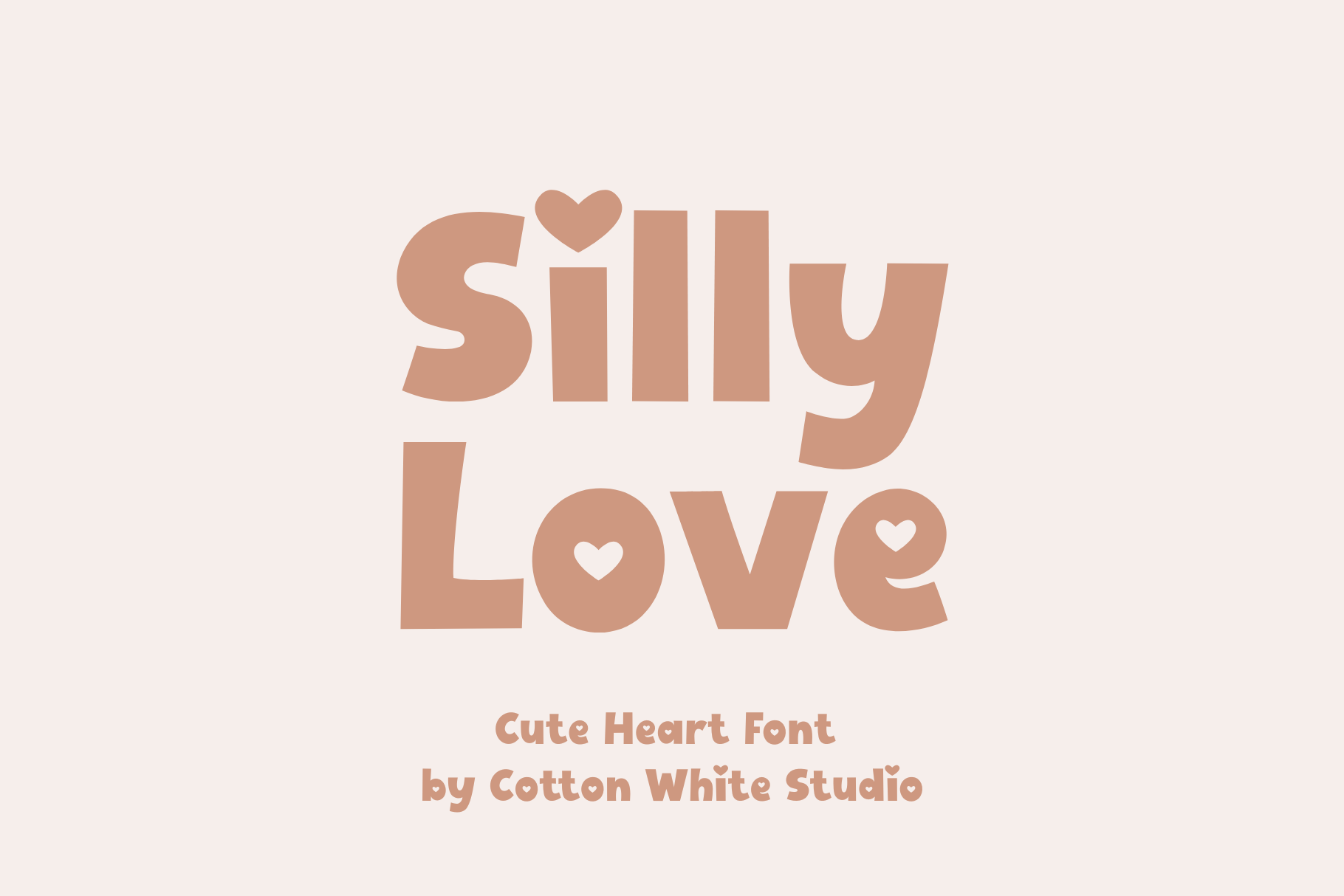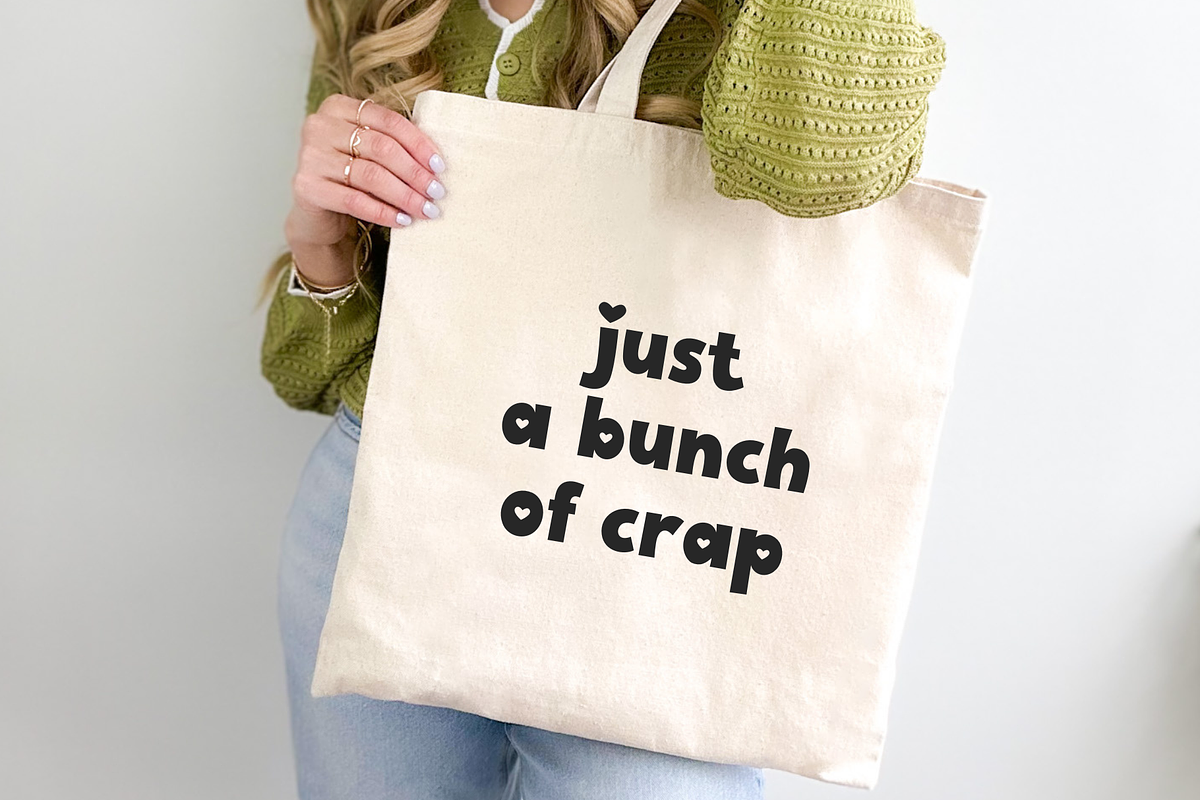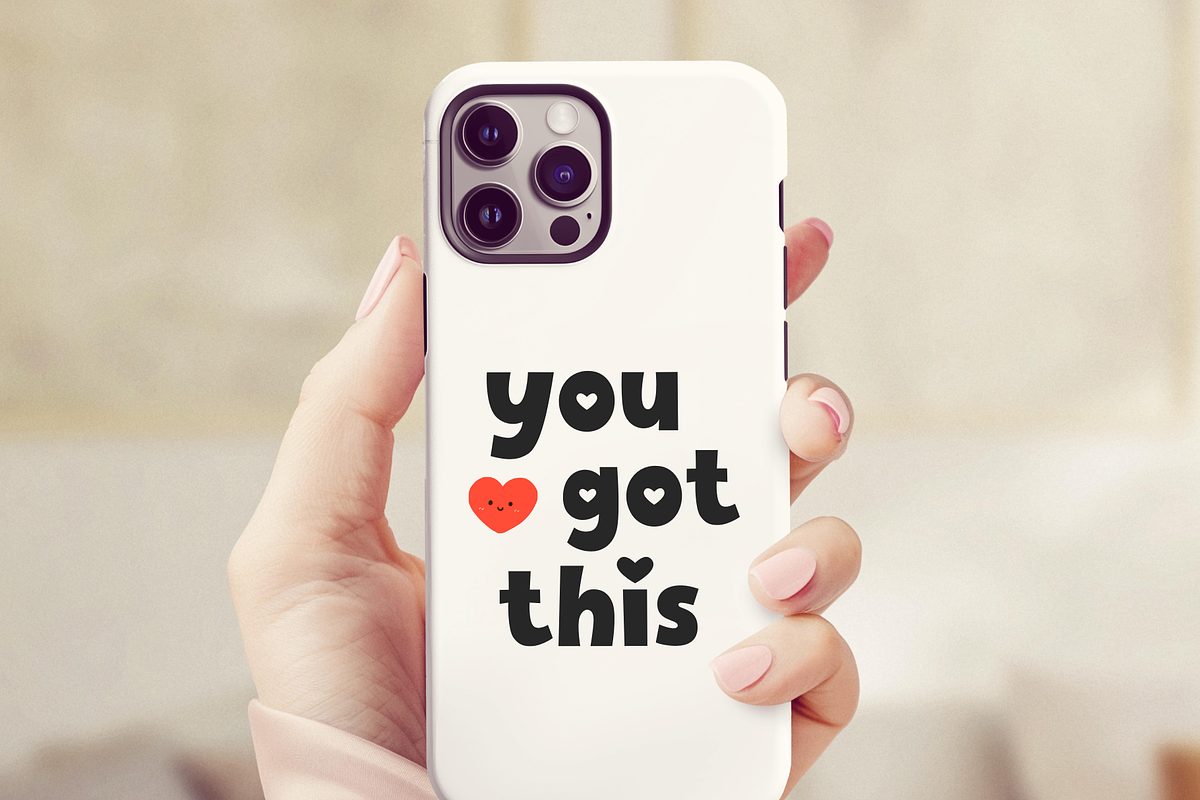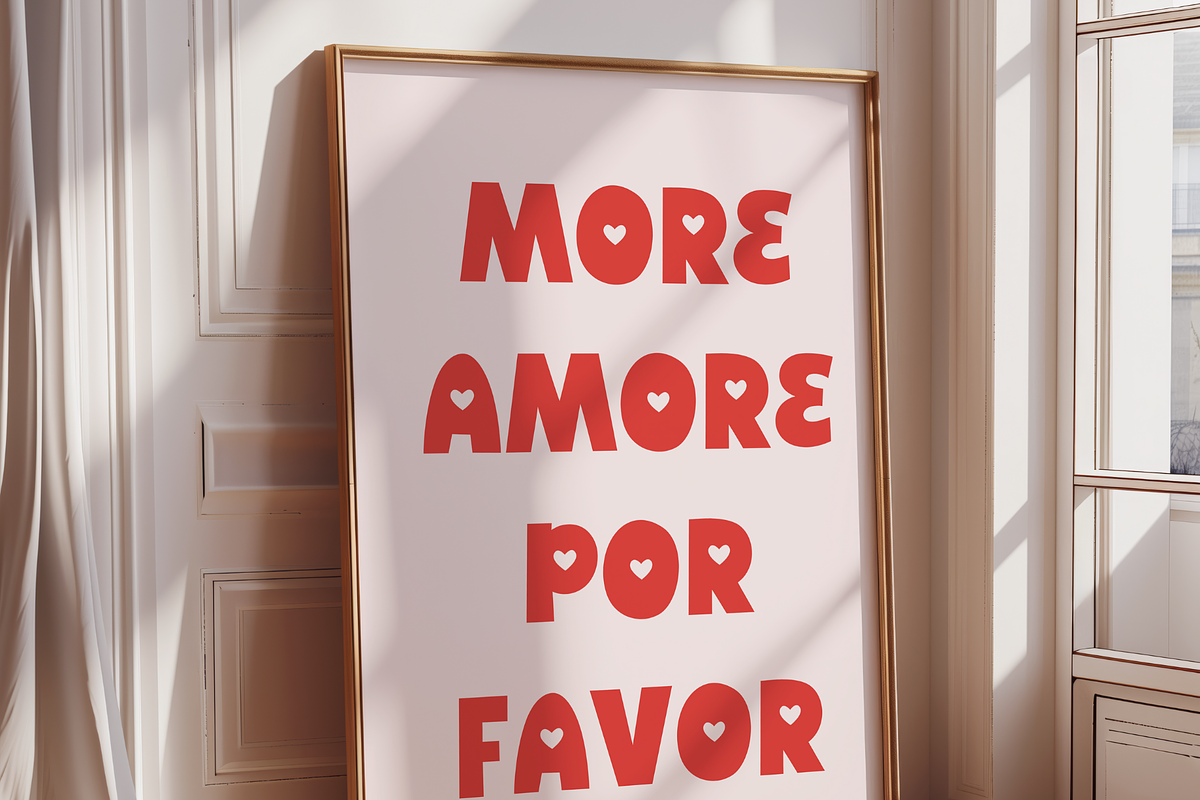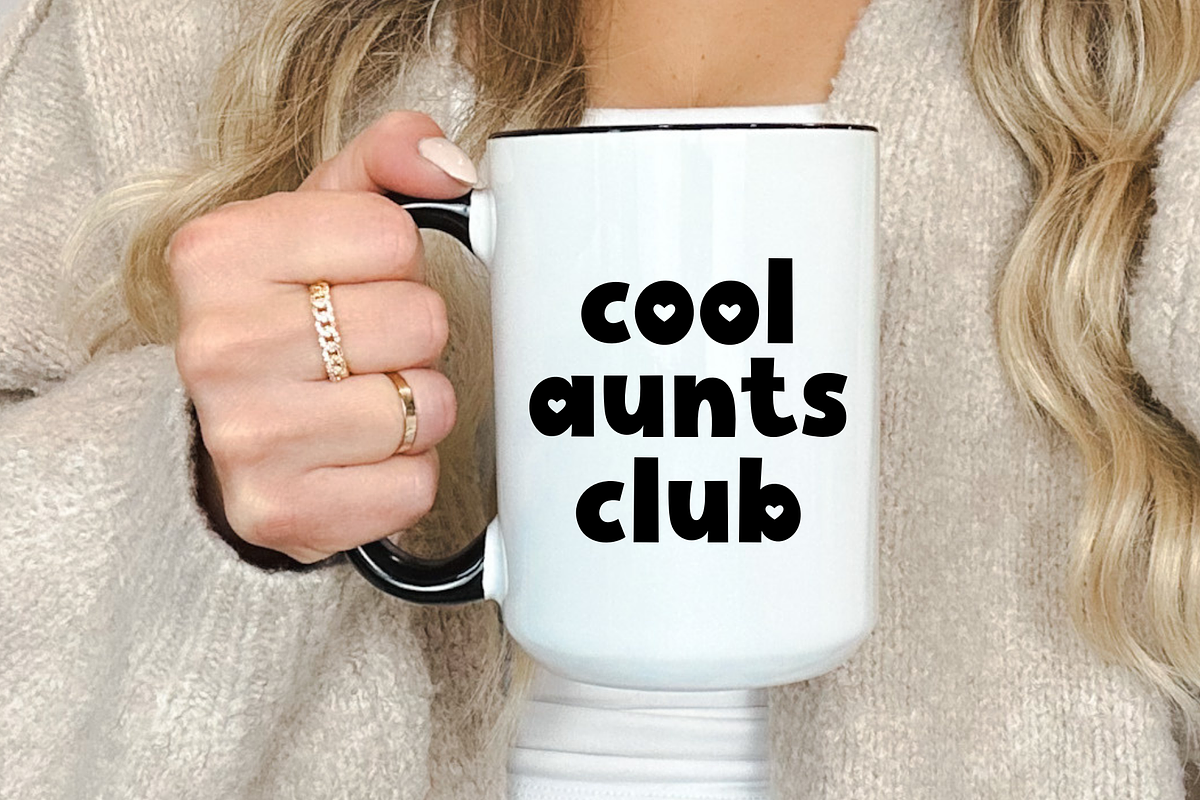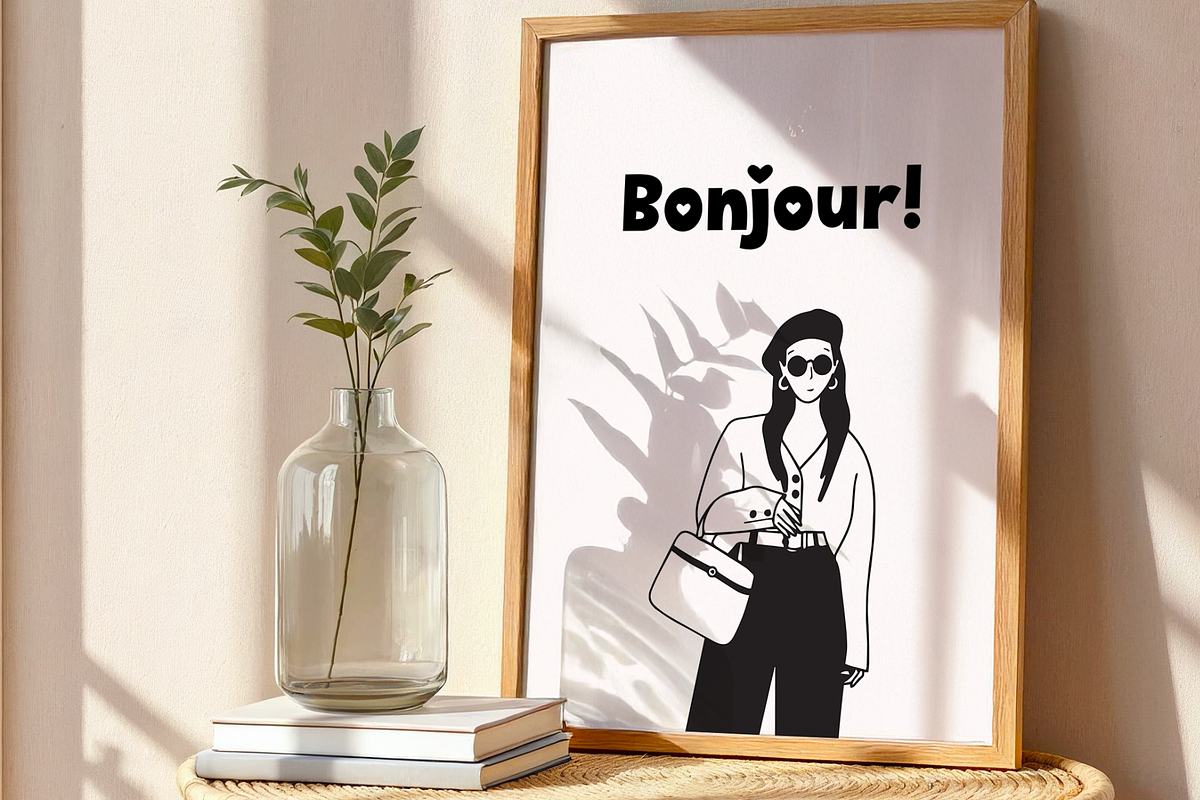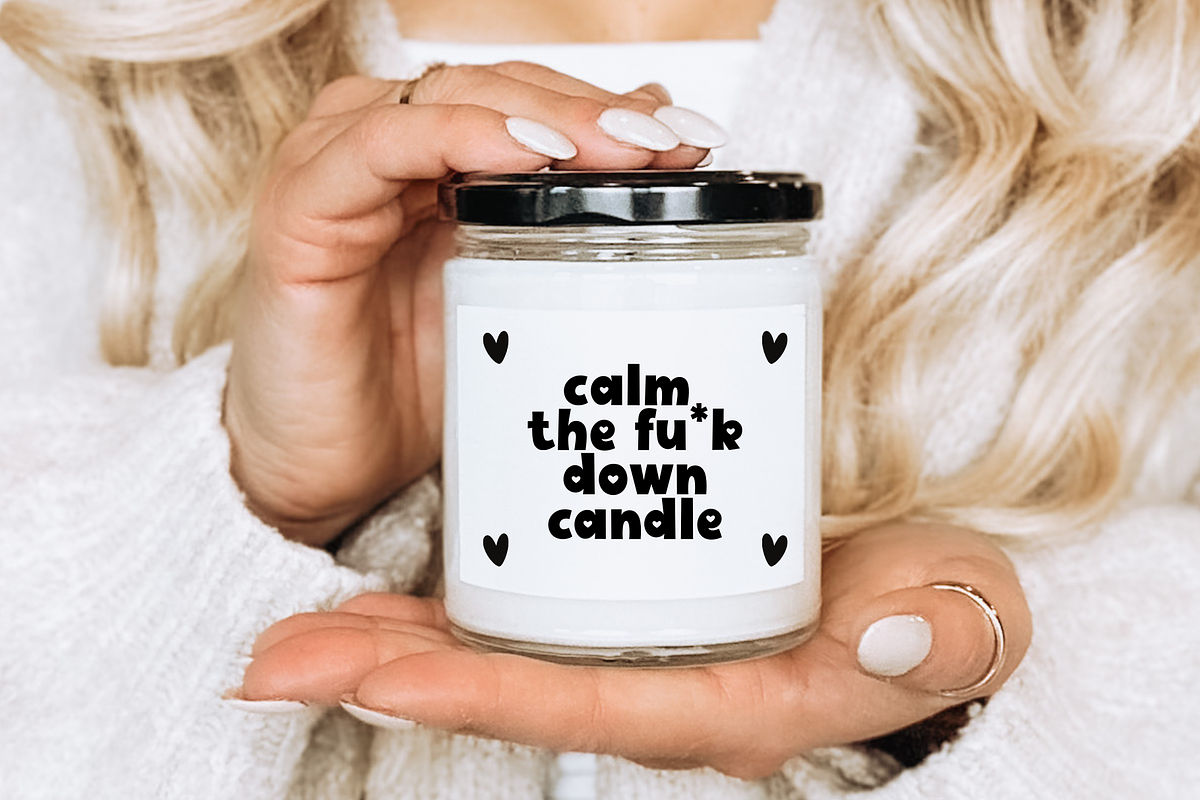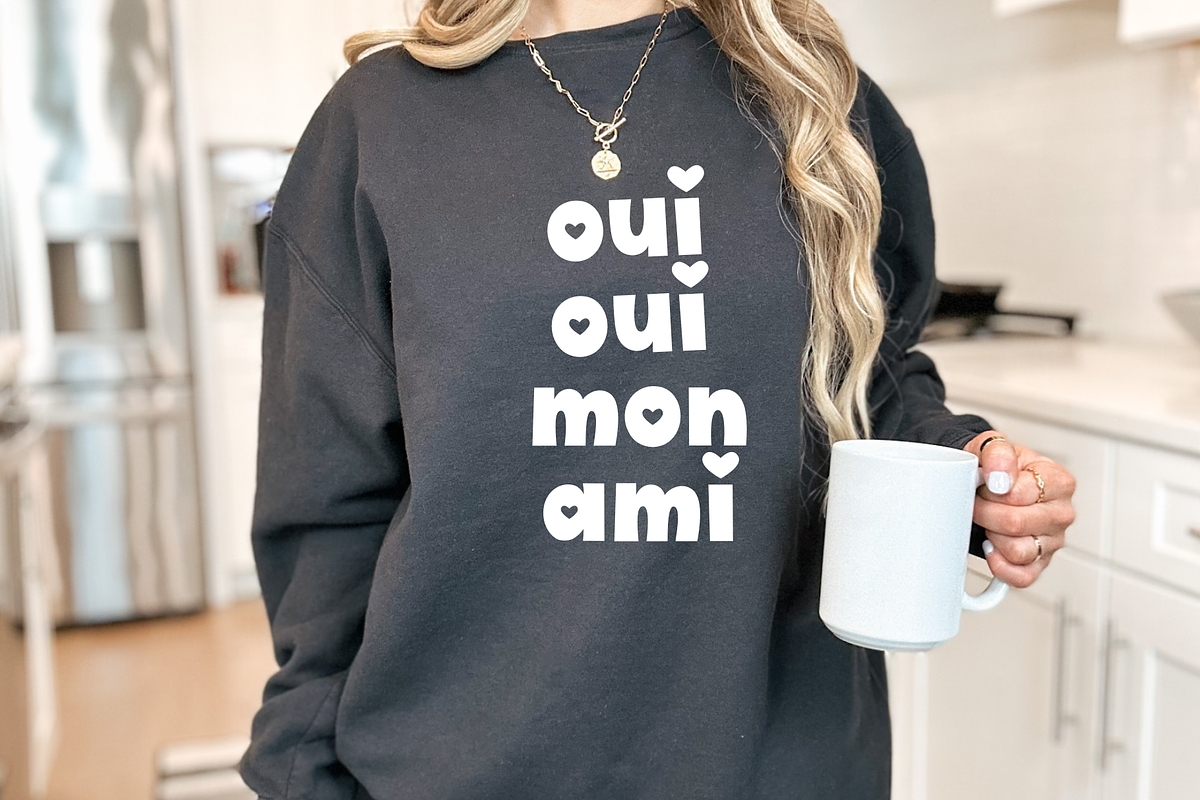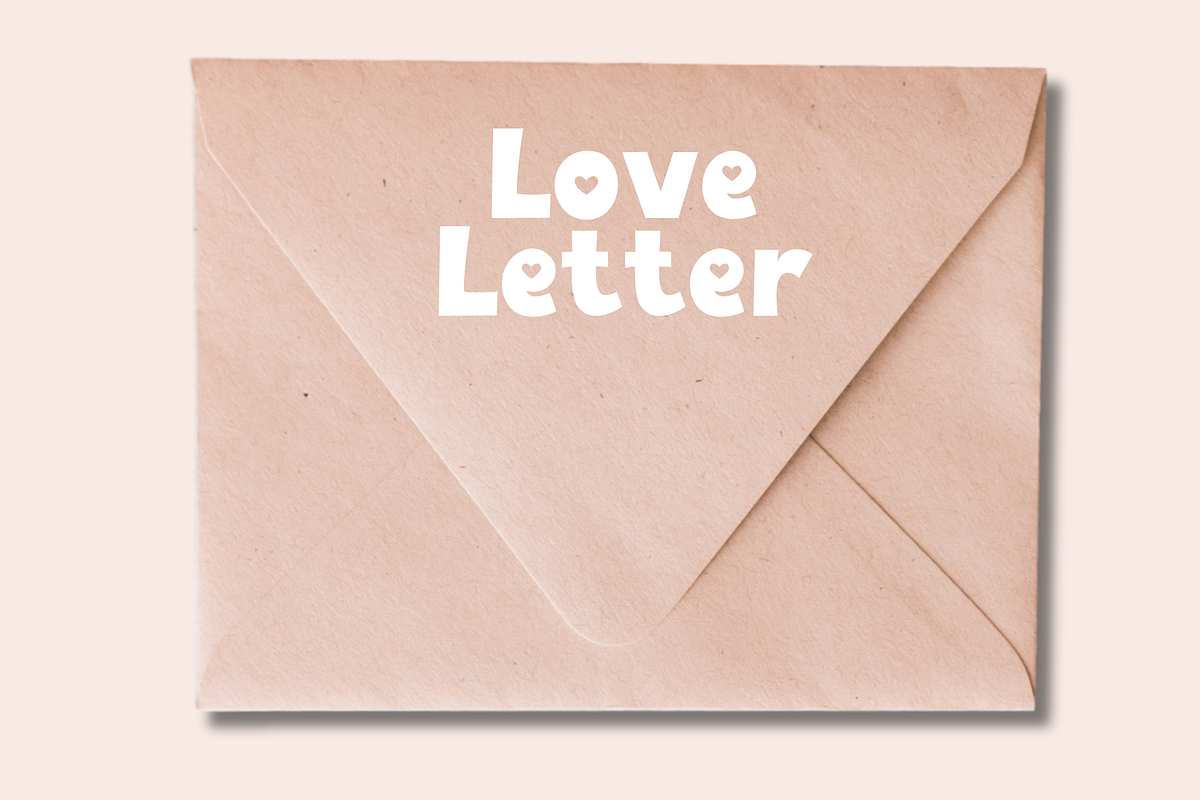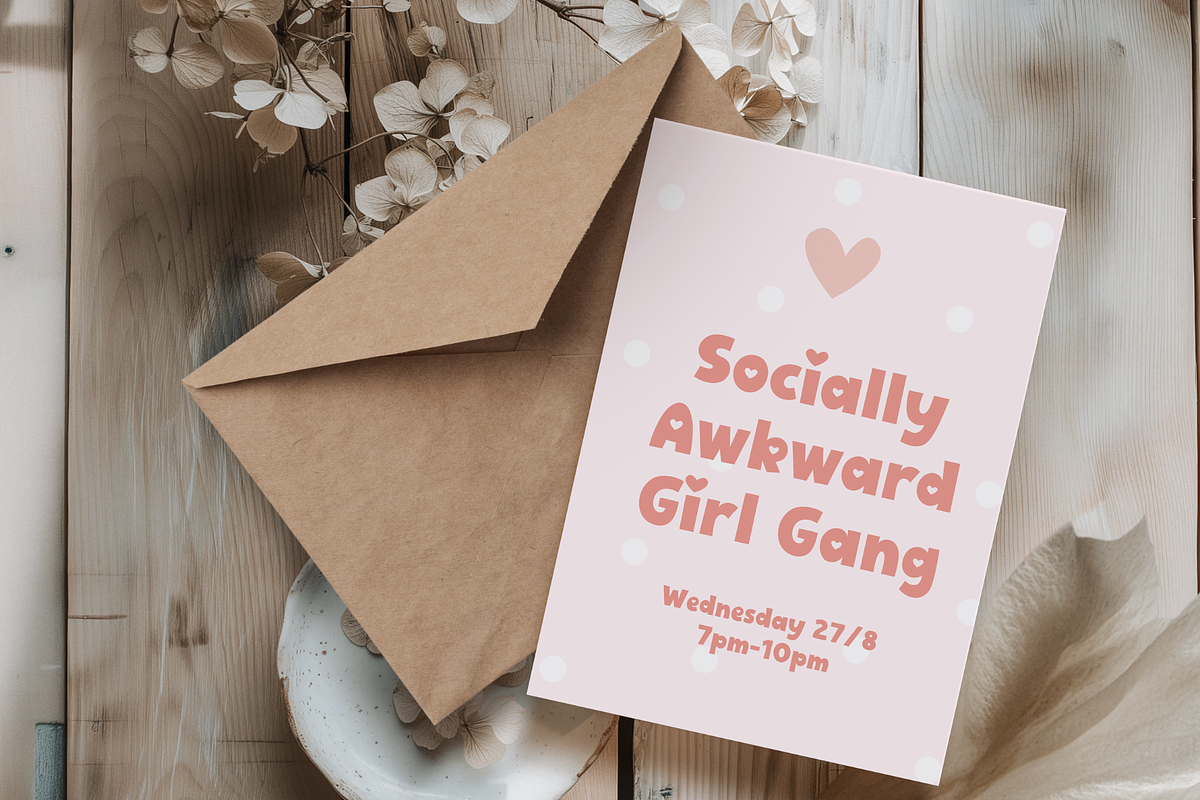
Silly Love Cute Heart Font
Introducing Silly Love, the charming handwritten font that effortlessly blends simplicity with cuteness! Clean, easy-to-read letters with a handwritten feel. Perfect for adding a personal, handmade touch to any project, this font is ideal for creating everything from heartfelt invitations to fun branding materials, social media posts, digital journals, and more.